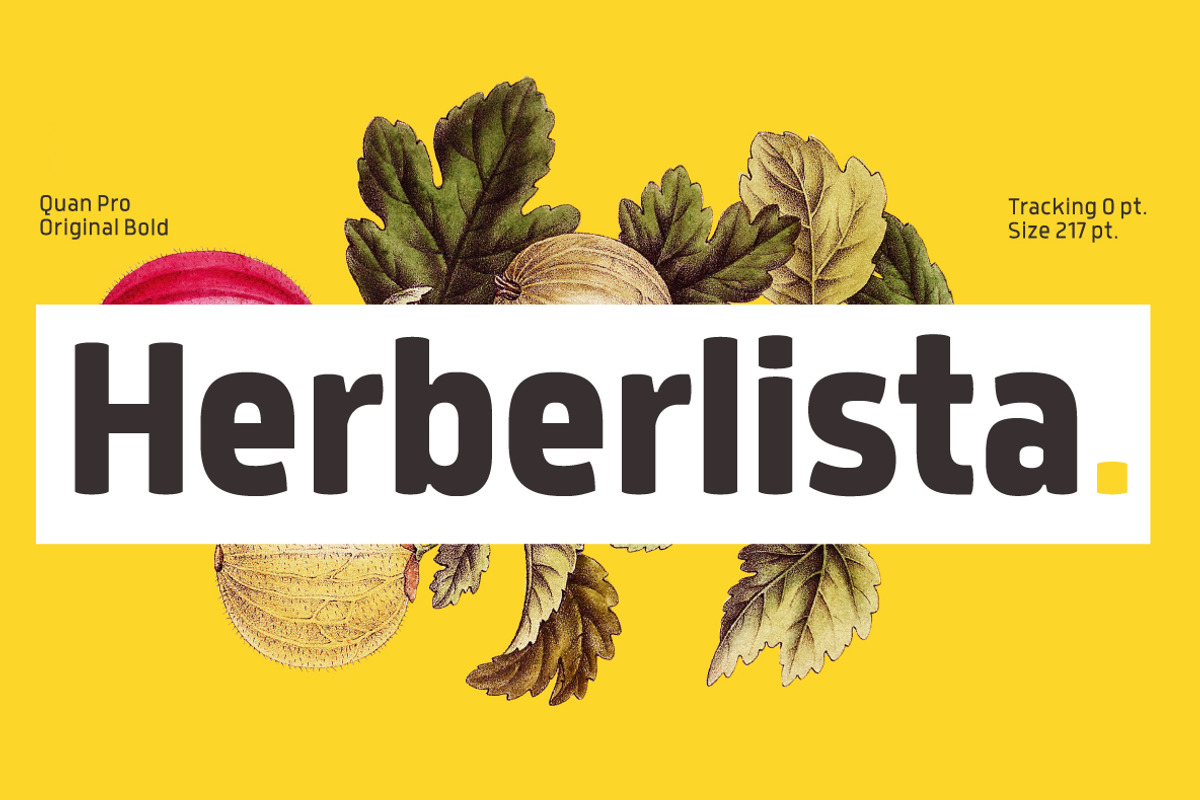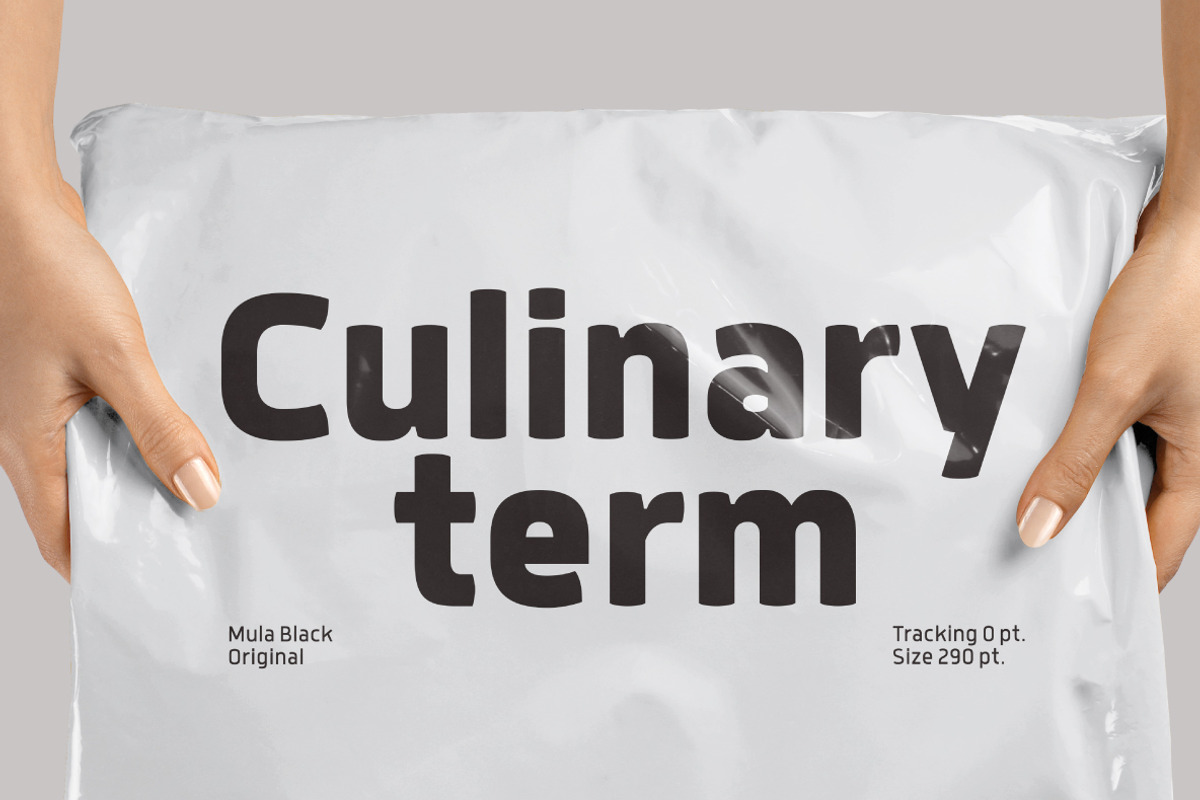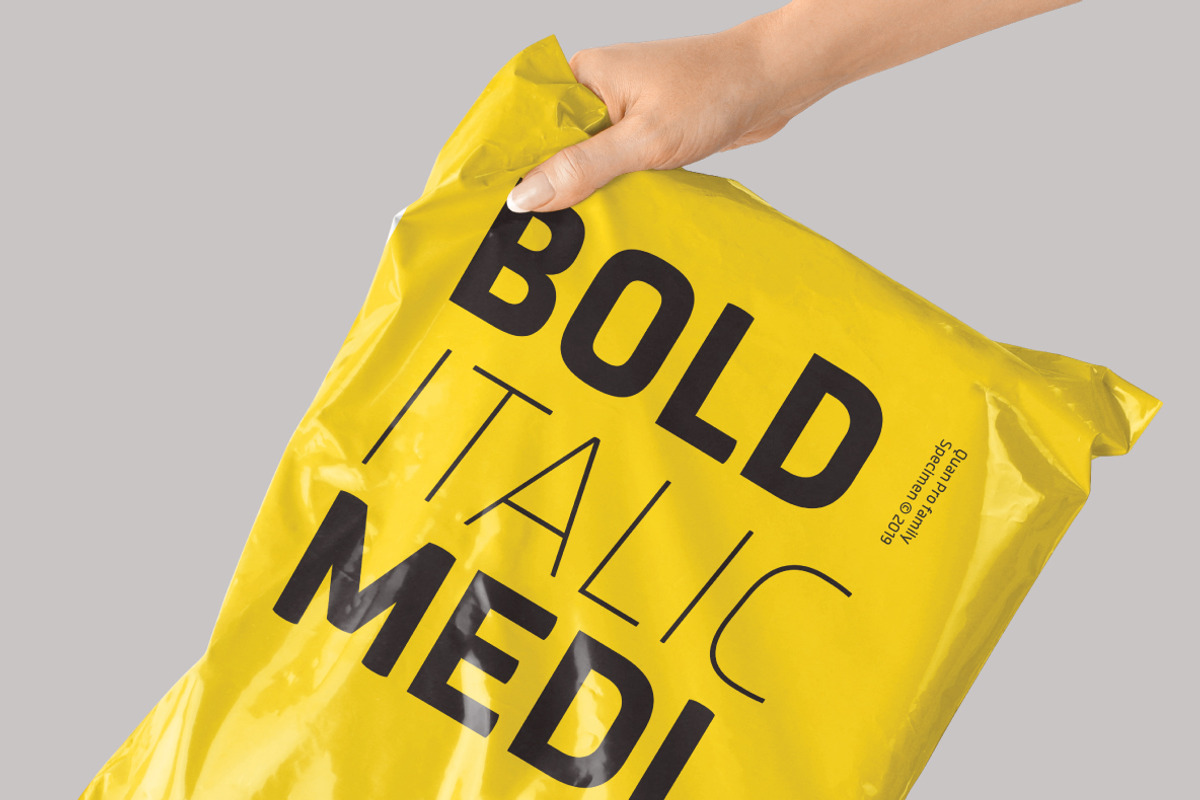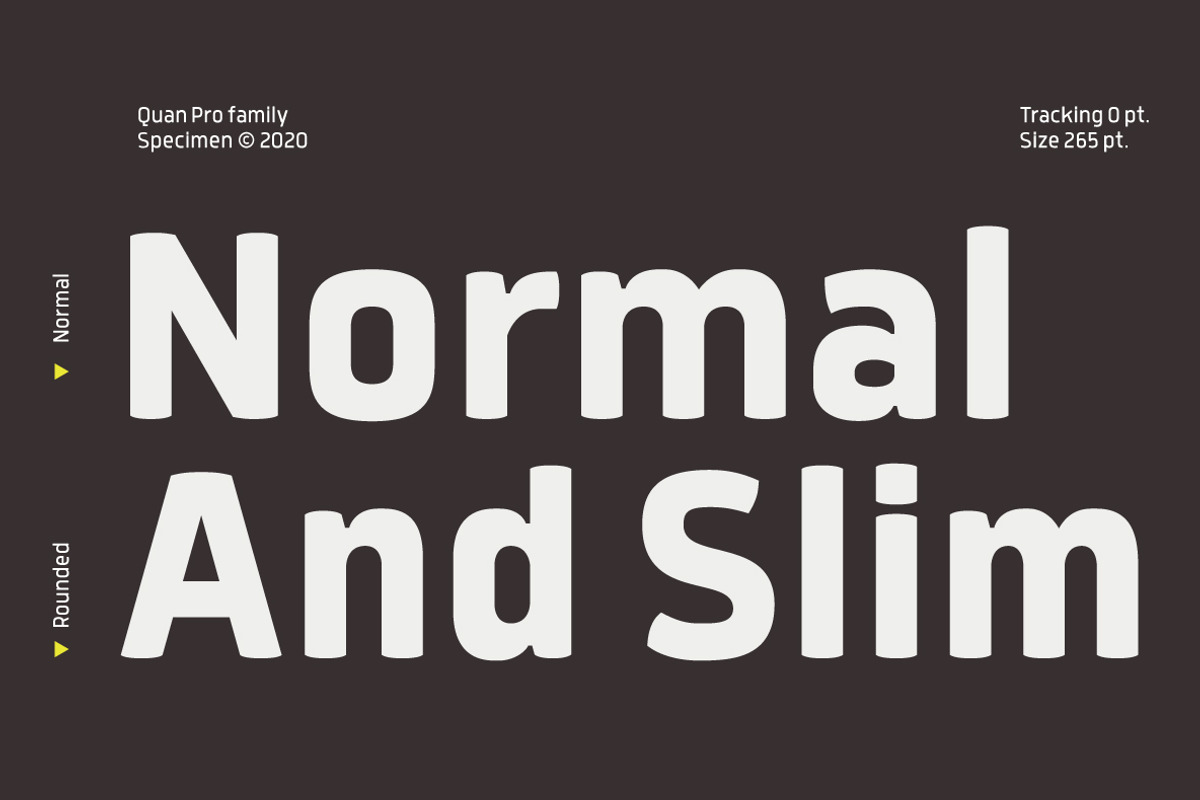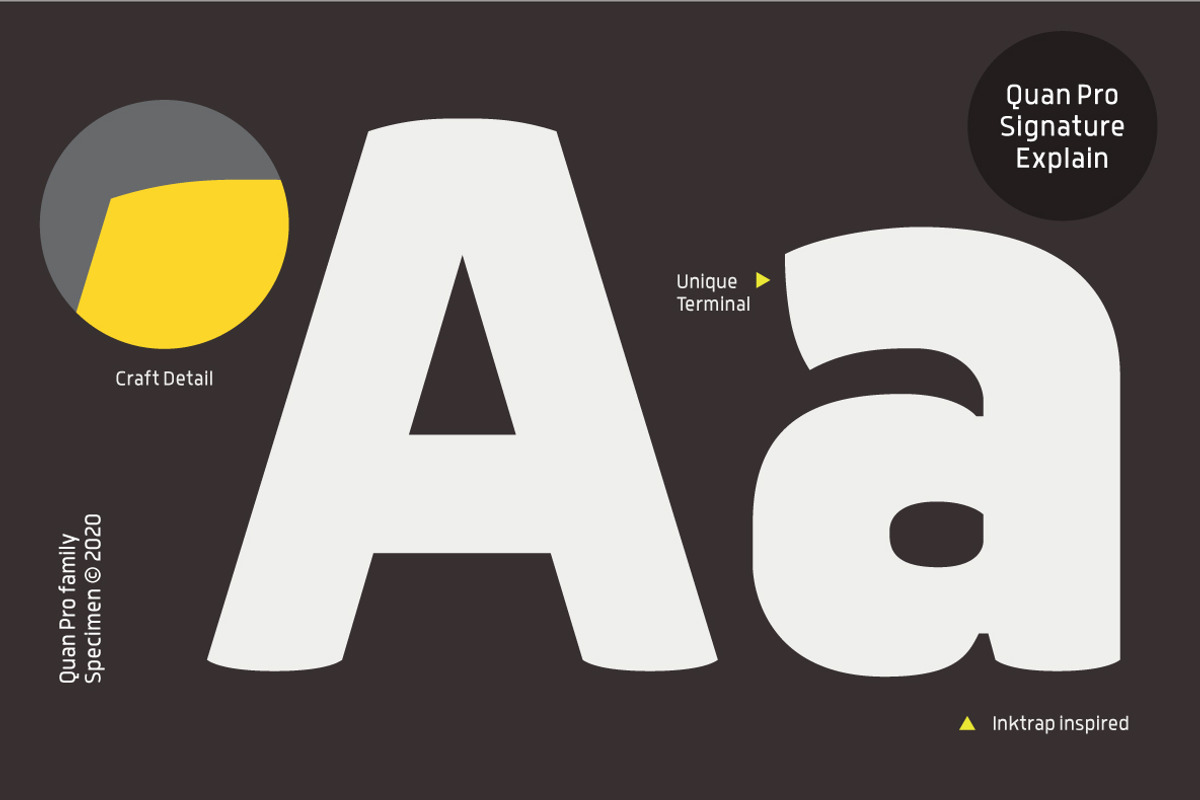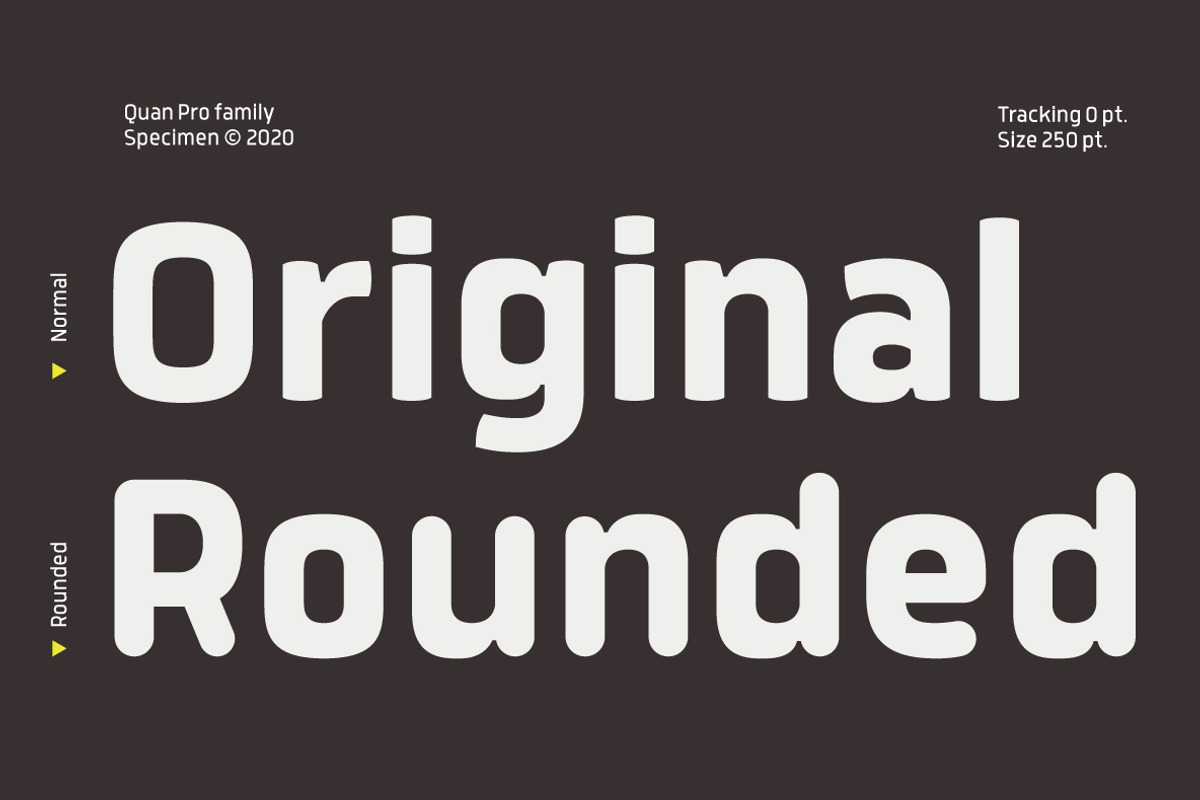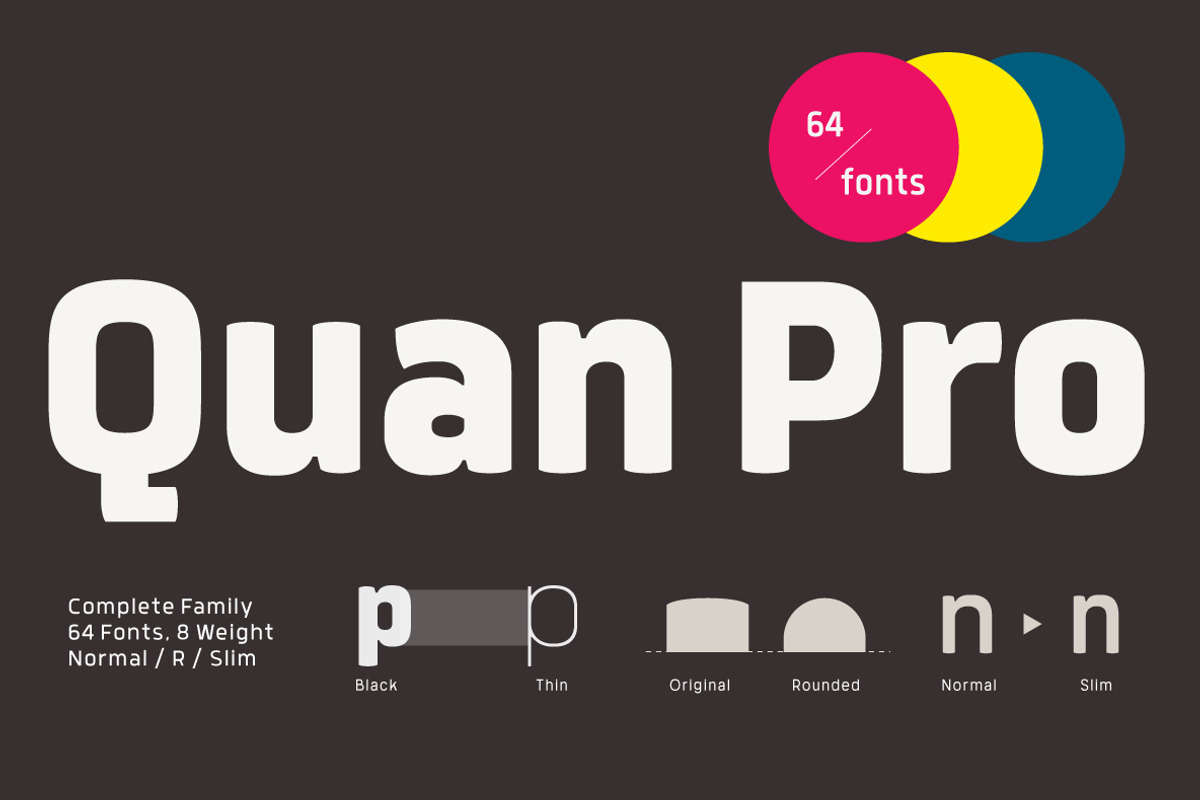
Quan Pro
Quan Pro is new redesigned version of Quan(2013) – one of the most popular font families of Typesketchbook foundry. This new family has refreshed structure, corners, and a new shape of glyphs. It is developed in 8 separate weights ranging from Thin to Black, each coming with Rounded and Slim version, which is well suited for a variety of typographic applications such as headlines and small texts. Quan Pro font family supports multiple languages and is available as both webfont and desktop font.